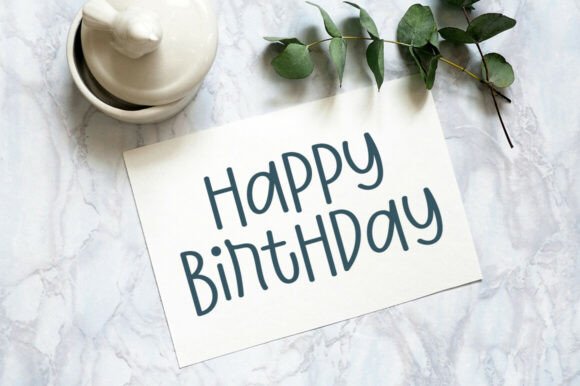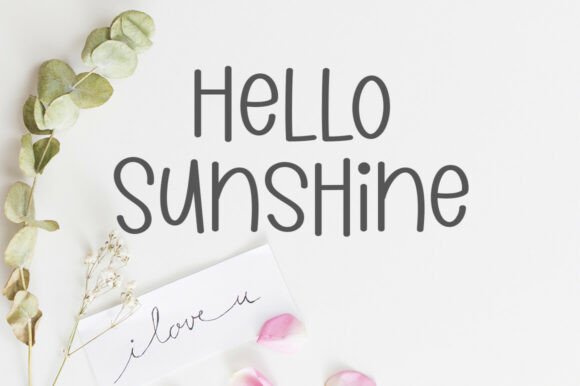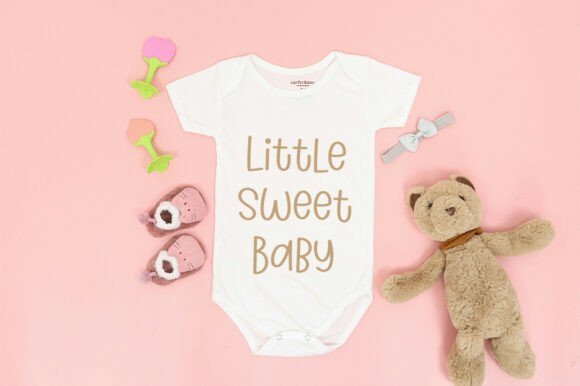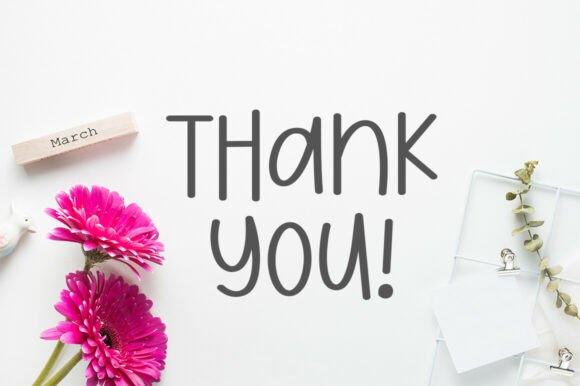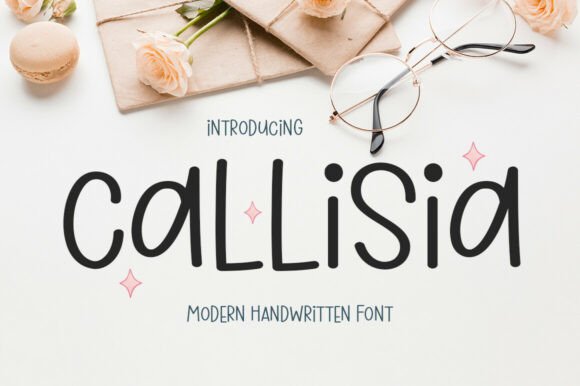
Introducing Callisia Font: Elevate Your Designs with Elegance and Sophistication
In the world of typography, few fonts manage to strike a balance between elegance, sophistication, and artistic flair. Callisia Font is one such exceptional typeface that has been making waves in the design community. This modern handwritten font is characterized by its tall proportions, quirky elongated stems, and bouncing baseline, which collectively capture the essence of contemporary calligraphy.
The Essence of Callisia Font
Callisia is an elegant, tall-proportioned modern handwritten font designed to add a sophisticated, artisanal touch to any creative project. Its unique features include:
- Quirky, elongated stems that give the font a distinctive and artistic look.
- A bouncing baseline that adds a touch of playfulness and whimsy to the text.
- A graceful yet modern structure that ensures legibility while making a strong artistic statement.
Perfect for Luxury Branding and High-End Designs
Callisia Font is a premier choice for luxury boutique branding, wedding stationery, and high-end lifestyle photography overlays. Its sophisticated and elegant appearance makes it an ideal fit for designers and crafters looking to create high-end visual content. Whether you’re designing a logo, creating wedding invitations, or crafting a brand identity, Callisia Font is sure to impress.
Design Versatility
One of the standout features of Callisia Font is its versatility. You can use it to:
- Create signature-style logos that exude elegance and sophistication.
- Pair it with a classic serif font for a timeless, high-fashion editorial look.
- Add a touch of artisan flair to your designs, making them stand out from the crowd.
Why Choose Callisia Font?
With so many fonts available, why choose Callisia Font? Here are a few compelling reasons:
- Unique and distinctive: Callisia Font offers a fresh and unique perspective on modern calligraphy.
- Highly legible: Despite its artistic flair, Callisia Font remains easy to read, making it perfect for body text and headlines.
- Customizable: Experiment with different colors, textures, and pairings to make Callisia Font your own.
Tips for Using Callisia Font
To get the most out of Callisia Font, here are a few design tips:
- Use it sparingly: Callisia Font is best used as an accent font to add a touch of elegance to your designs.
- Experiment with colors: Try pairing Callisia Font with different colors and textures to create a unique look.
- Mix and match: Combine Callisia Font with other fonts to create a visually interesting design.
Callisia Font is a stunning, modern handwritten font that is sure to elevate your designs to new heights. Its unique blend of elegance, sophistication, and artistic flair makes it a premier choice for luxury branding, wedding stationery, and high-end lifestyle photography overlays. With its versatility, legibility, and customizability, Callisia Font is an excellent addition to any designer’s toolkit.